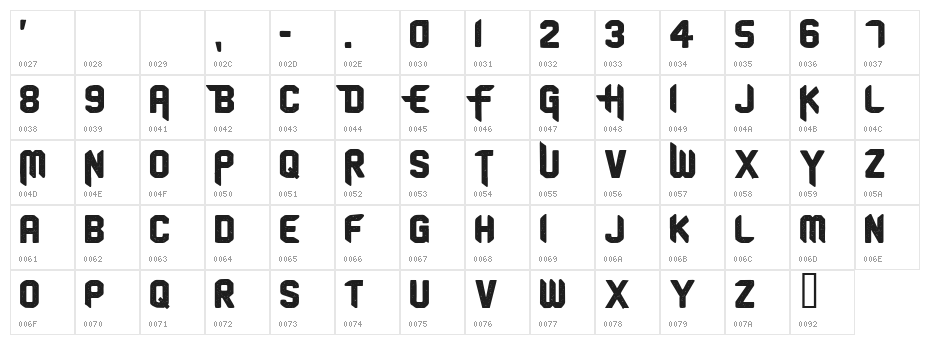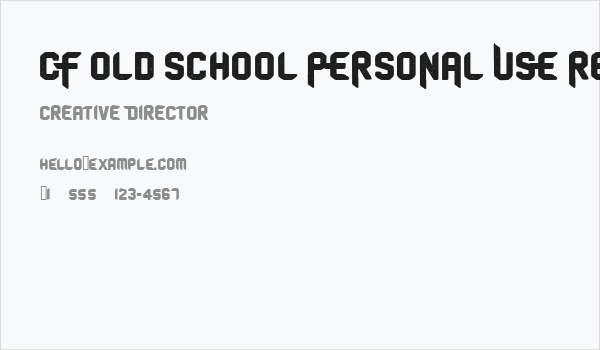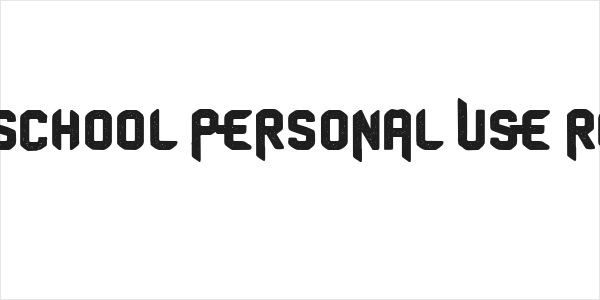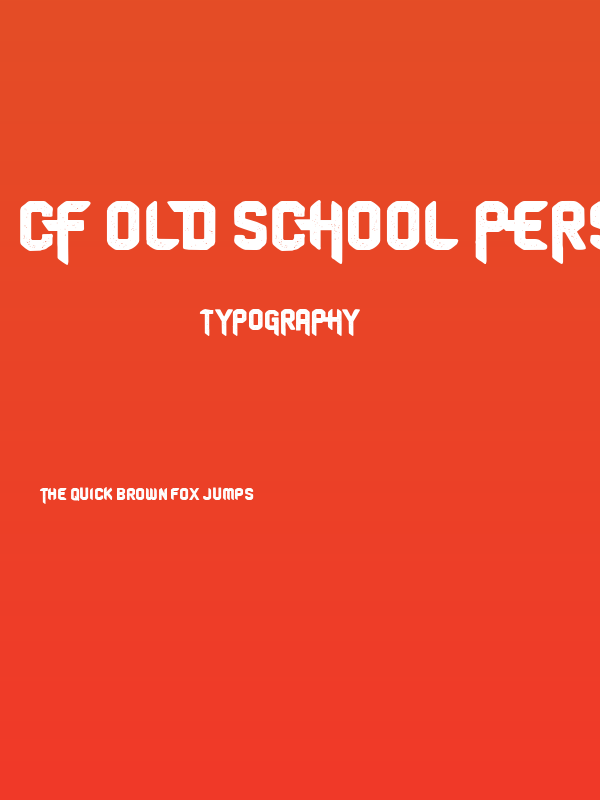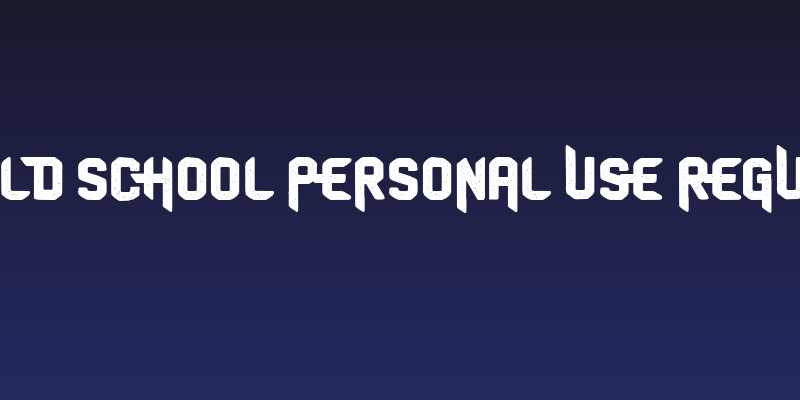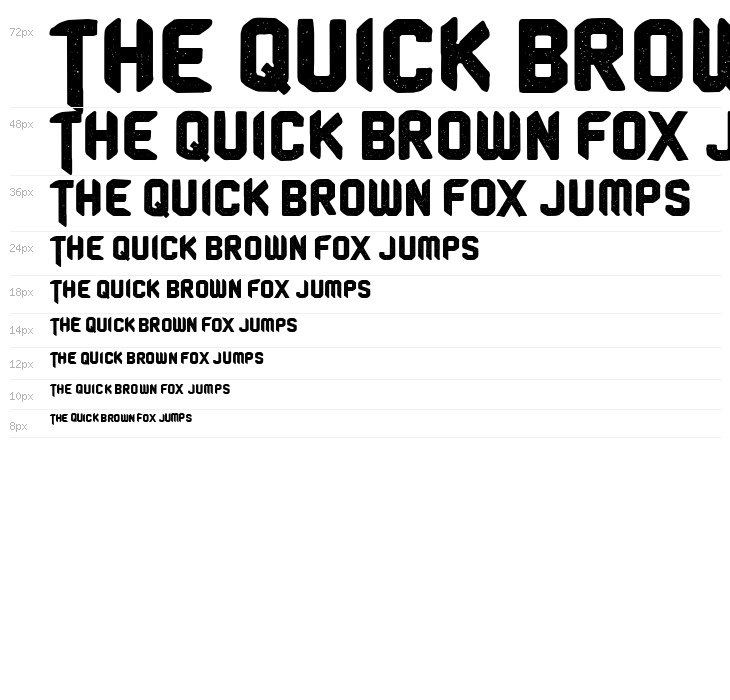
CF Old School PERSONAL USE Regular Font
CF Old School PERSONAL USE Regular Description
This font features a bold, geometric design with a distinctly vintage feel. The characters are blocky and angular, with a distressed texture that adds a retro, worn look. The uppercase and lowercase letters maintain a consistent style, with sharp edges and a uniform thickness throughout. The numbers and special characters follow the same design principles, ensuring a cohesive appearance across all glyphs. The overall aesthetic is reminiscent of old-school signage or sports team logos, making it ideal for projects that require a strong, nostalgic impact.
| Proposed Projects | Ideal for retro-themed designs, sports logos, posters, and vintage branding. |